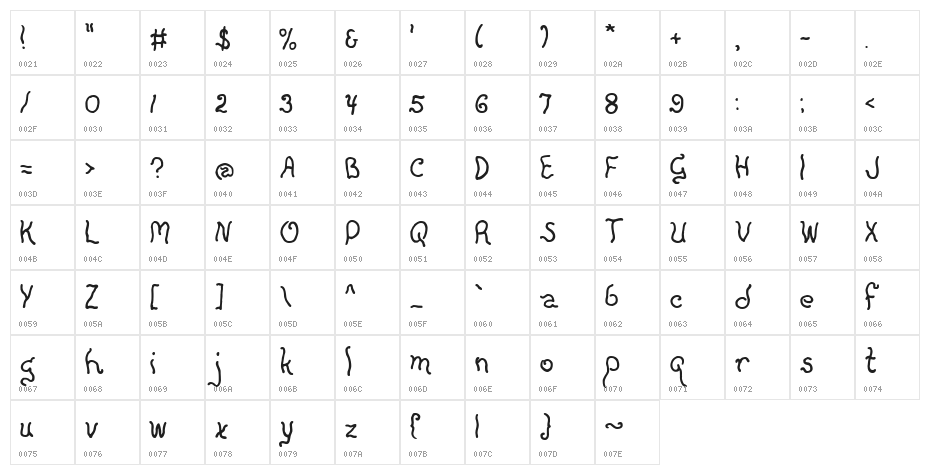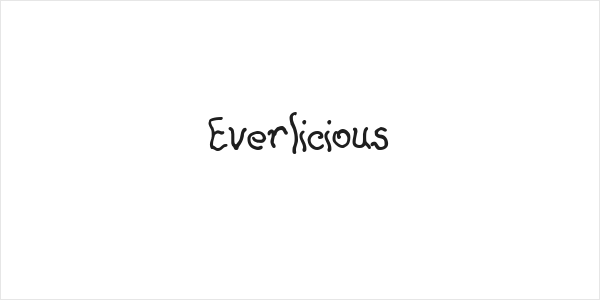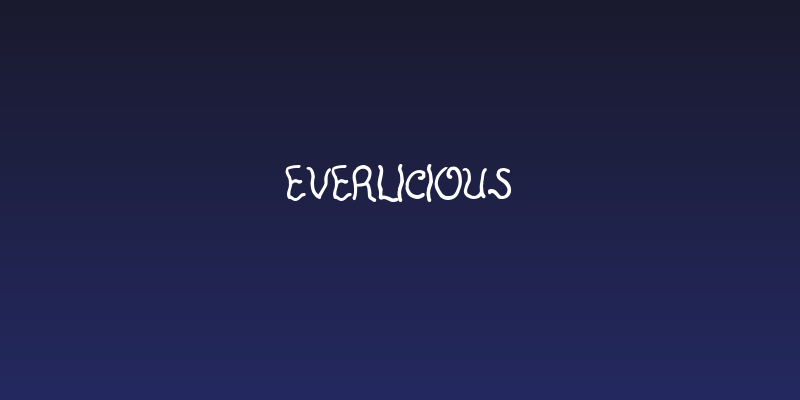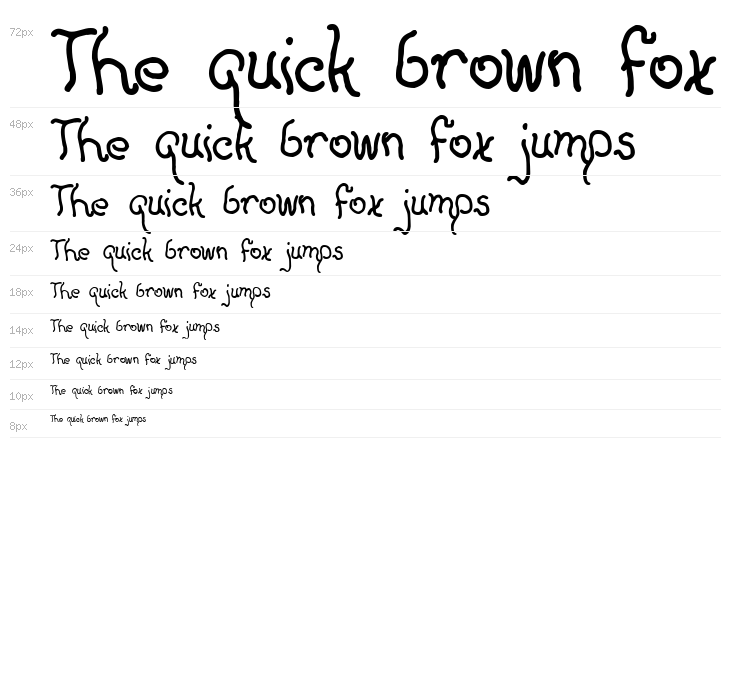
Everlicious Font
Everlicious Description
This font features a playful and whimsical design with a hand-drawn appearance. The letters are characterized by their irregular, wavy lines, giving them a lively and dynamic feel. The uppercase and lowercase letters maintain a consistent style, with rounded edges and a slightly uneven baseline that adds to the casual aesthetic. Numbers and special characters follow the same playful theme, making the font suitable for creative and informal projects. The overall look is reminiscent of doodles or handwriting, which can add a personal touch to any design.
EVERLICIOUS UPPERCASE
EVERLICIOUS LOWERCASE
EVERLICIOUS OTHER CHARS
| Proposed Projects | Ideal for children's books, creative posters, casual invitations, and playful branding. |